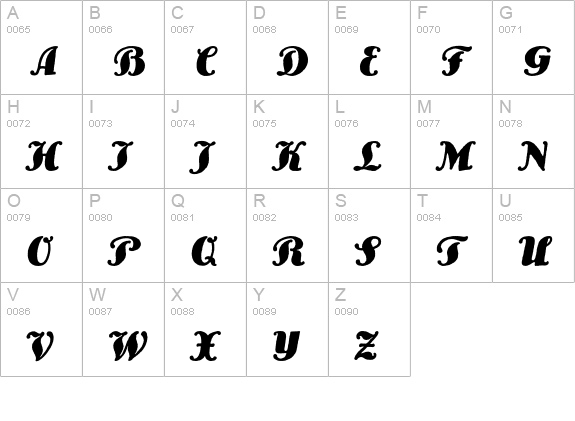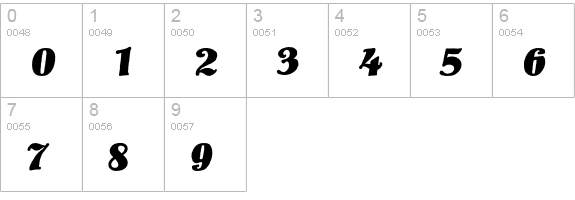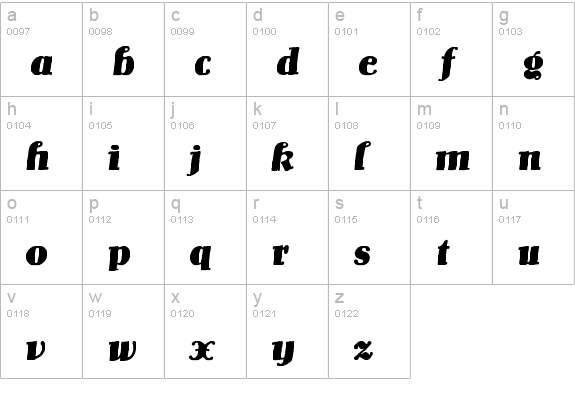
Lo-Type BQ Medium Italic Font Details
Lo-Type BQ Medium Italic is a balanced, medium-weight, italic variant in the Lo typeface family \xE2\x80\x94 well suited to sub-headlines, navigation, and balanced editorial work.
Lo-Type BQ Medium Italic font is a beautifully crafted typeface that strikes the perfect balance between elegance and readability. Its sleek and modern design makes it ideal for a wide range of projects, from branding to editorial design. The medium weight and italic style add a touch of sophistication, making any text stand out with a touch of flair. What makes Lo-Type BQ Medium Italic font even more appealing is that it is completely free to download at FontsMarket.com. This means you can elevate your designs without breaking the bank. Whether you're working on a professional project or a personal creative endeavor, this font is sure to enhance your work with its stylish and versatile appearance. Don't miss out on the opportunity to add Lo-Type BQ Medium Italic font to your font collection today. Download it for free at FontsMarket.com and start creating stunning designs that truly make a statement.